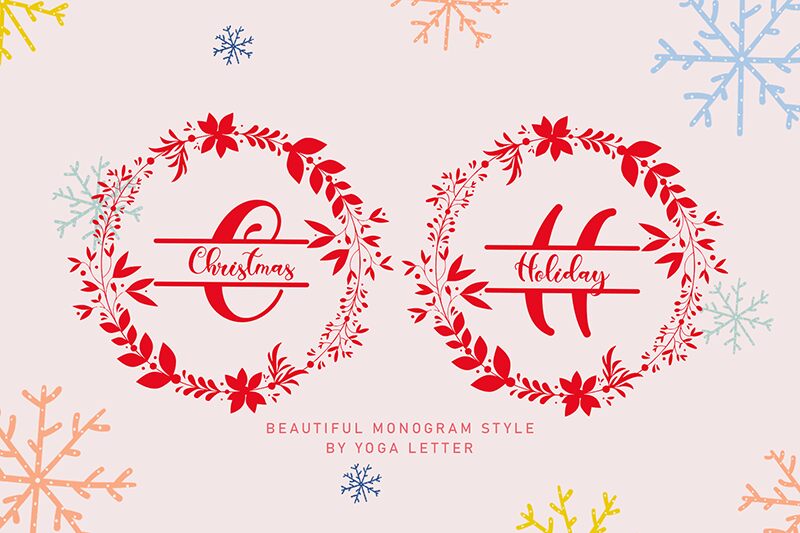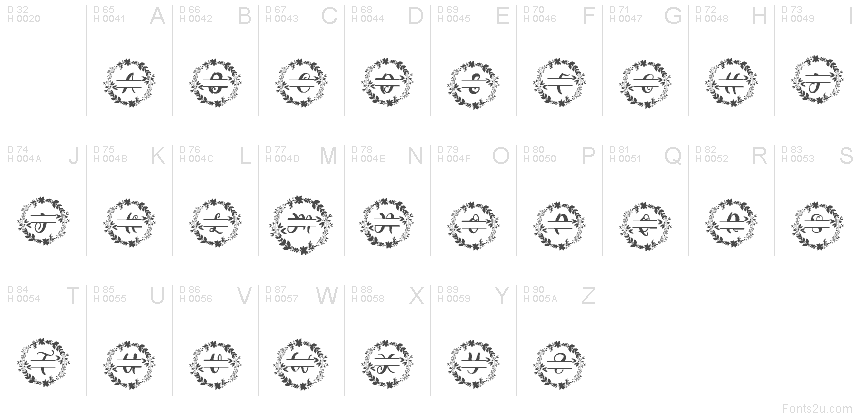
Monogram
Monogram font by Yoga Letter is a free Christmas holiday monogram typeface that turns every initial into a tiny wreath. Each letter sits inside a delicate circular frame of leaves, berries, and twigs, like an ink-stamped seal on snowy stationery. The strokes are fine and crisp, giving your designs a handmade-but-polished feel that works beautifully when you need something festive yet refined, not cartoonish.
Using Monogram, you can instantly create custom initials for Christmas cards, gift tags, stockings, ornaments, mugs, and seasonal logos. This free font shines when you let the letters breathe—set them large as a focal point and keep supporting text in a clean sans serif underneath. It’s a natural fit for personalized holiday branding, DIY crafts, and social media graphics that need a cozy, bespoke Christmas touch.